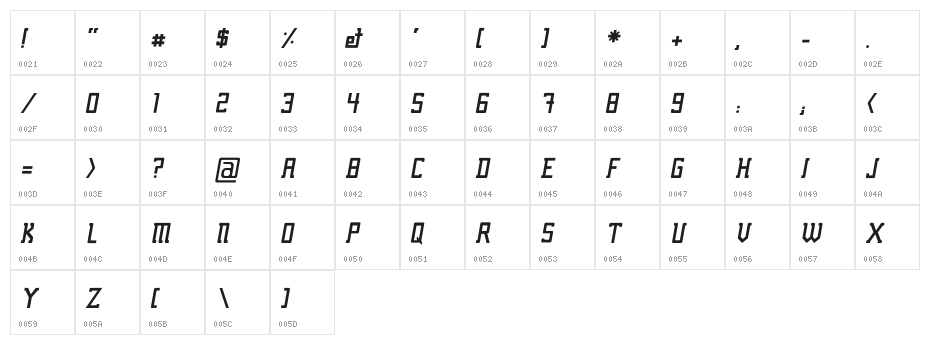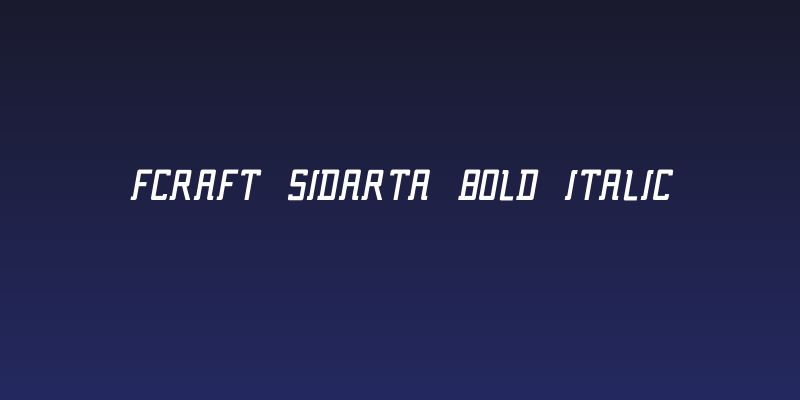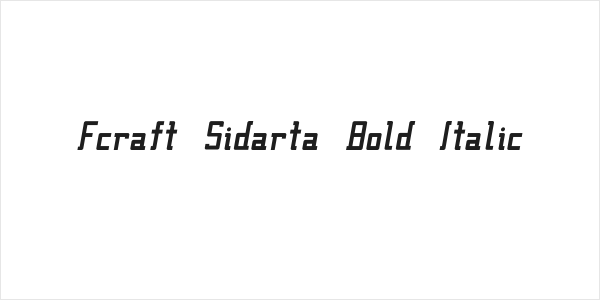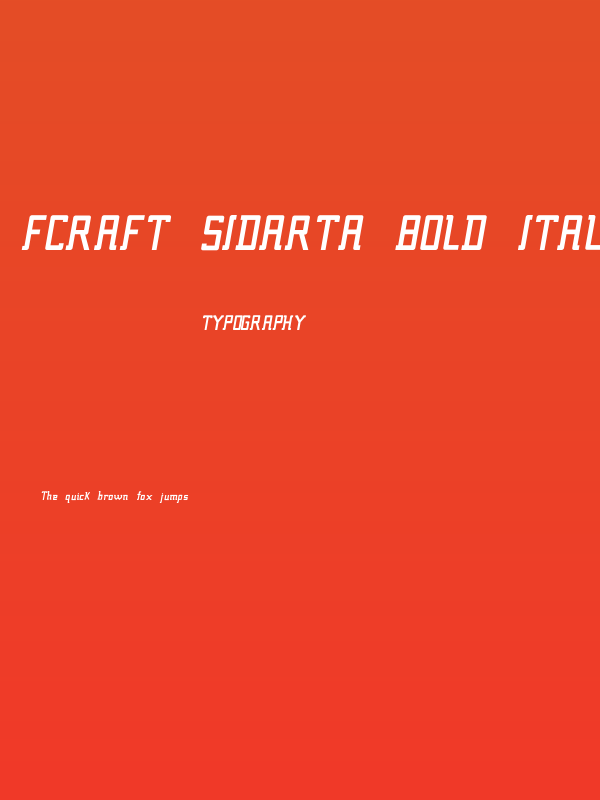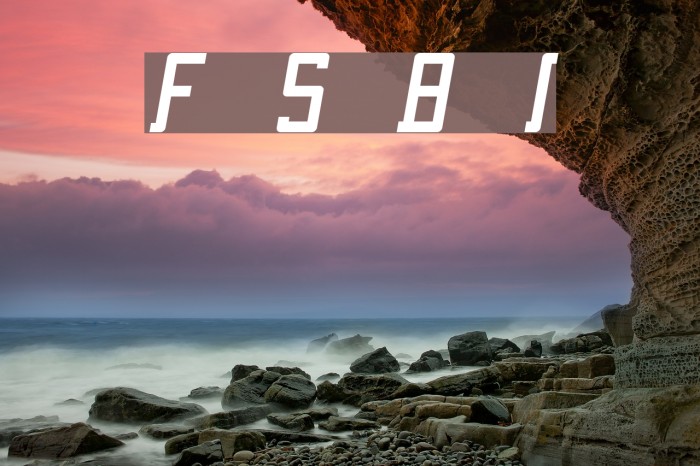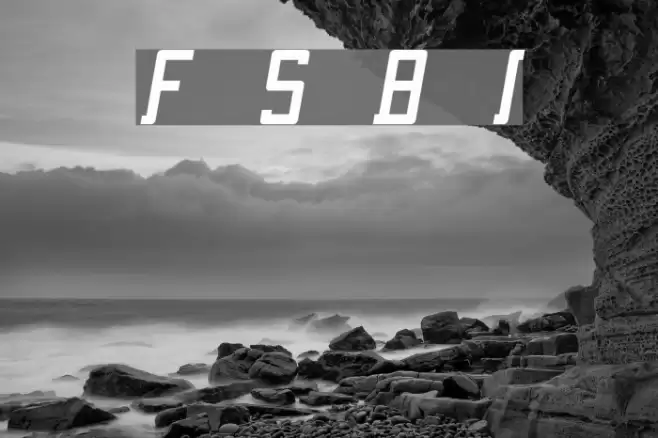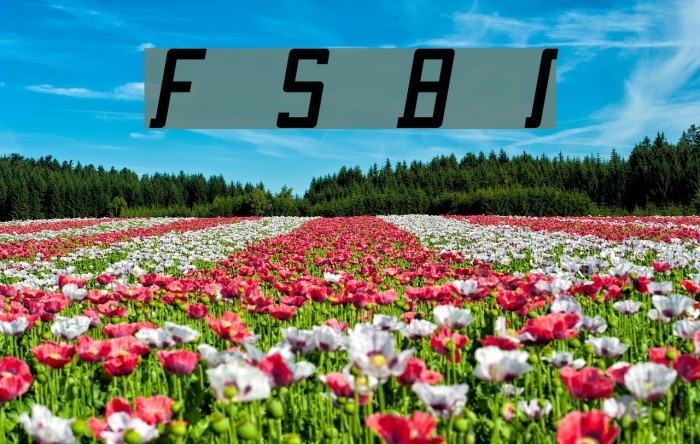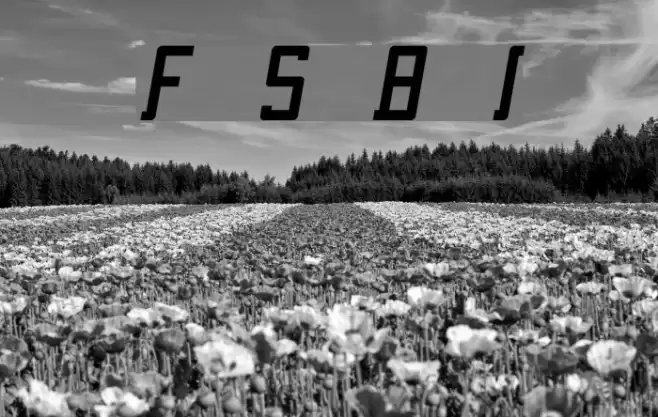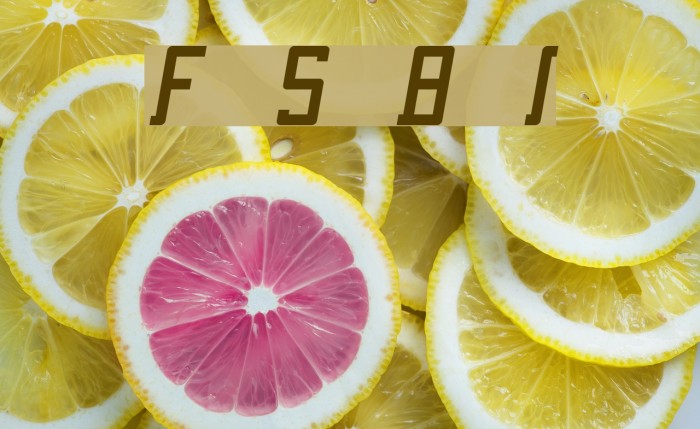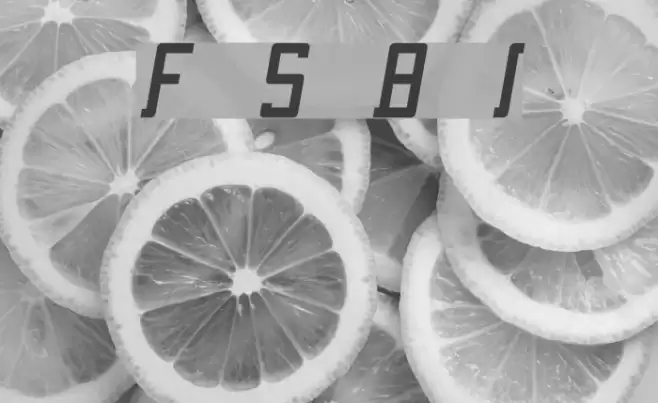
Fcraft Sidarta Bold Italic Font
Fcraft Sidarta Bold Italic Description
This font features a bold and italicized style with a modern, angular design. The uppercase letters are tall and narrow, giving a sense of height and elegance. The lowercase letters maintain a consistent slant, enhancing the italic effect. Numbers are clear and distinct, matching the overall boldness of the font. Special characters are well-defined, adding versatility for various uses. The font's geometric shapes and sharp edges make it suitable for contemporary designs, while the italic slant adds a dynamic and energetic feel.
| Proposed Projects | Ideal for branding, posters, and headlines that require a modern and dynamic appearance. |